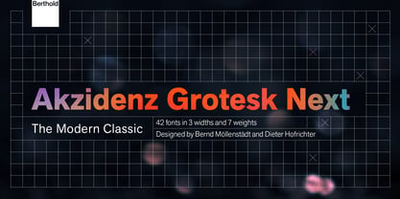
Akzidenz-Grotesk Next Font
Akzidenz-Grotesk Next is a contemporary revival of the legendary Akzidenz-Grotesk typeface by Berthold Type Foundry, one of the most influential sans-serif fonts in typographic history. Download Akzidenz-Grotesk Next font for your design projects.